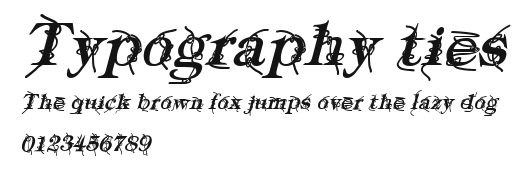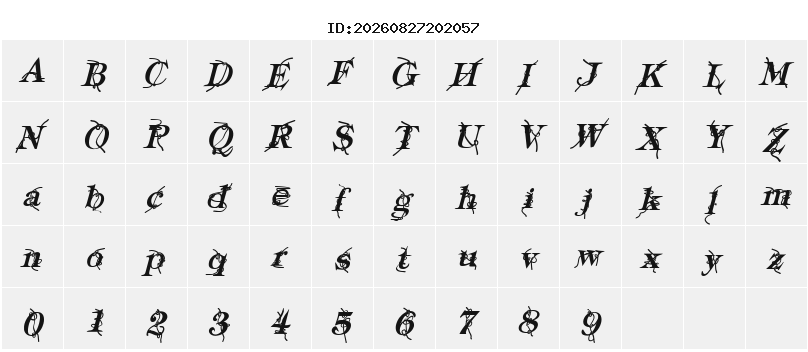
• Font Name: Typography ties
• Designer: Tipografia Leone Firenze
• Manufacturer: Tipografia Leone
• Description: A Serif font clearly inspired by the famous Times, but by linne much harder and sharp angles.